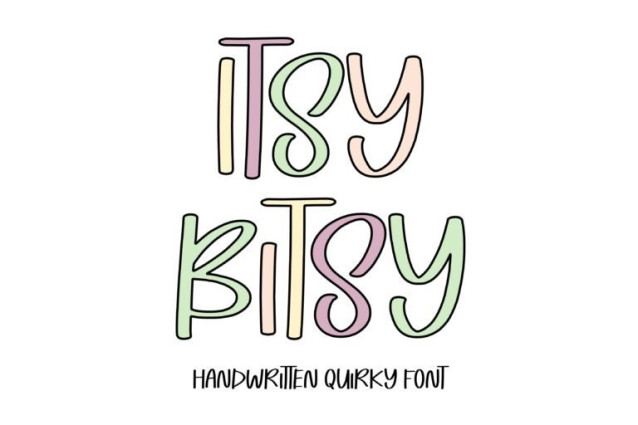
Itsy Bitsy Font
Itsy Bitsy Font is a simple and friendly handwritten font. Its natural and unique style makes it incredibly fitting to a large pool of designs. The only limit is your imagination!